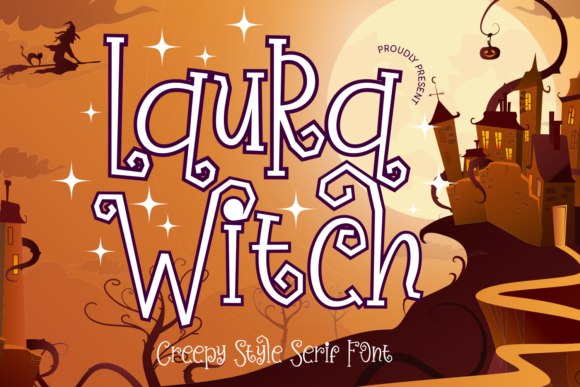
Enter the realm of Laura Witch, a haunting serif font that will cast a spell on your designs. Crafted by the masters at Creative Fabrica Fonts, this font exudes a mystical charm that's perfect for conjuring up spooky Halloween atmospheres or adding a touch of eerie elegance to any project.
Step into the enchanted world of Laura Witch, where letters dance like mischievous spirits, ready to weave their magic on your designs. Each character is a finely tuned stroke of genius, designed to capture the essence of the macabre and bring your creative visions to life. Unleash the power of Laura Witch and watch your designs transform into captivating masterpieces.
Whether you're crafting spellbinding Halloween invitations, casting a wicked spell over your witchy designs, or creating candy brands that ooze enchantment, Laura Witch is your font of choice. Its eerie elegance will add a touch of mystery to your packaging, making it stand out from the mundane and leaving a lasting impression on your customers.
With Laura Witch, you can conjure up party invitations that are as captivating as a witch's cauldron. Your words will dance across the page, inviting guests to a night of thrills and chills. Let Laura Witch be your muse as you craft designs that evoke the spirit of Halloween, leaving your audience spellbound.